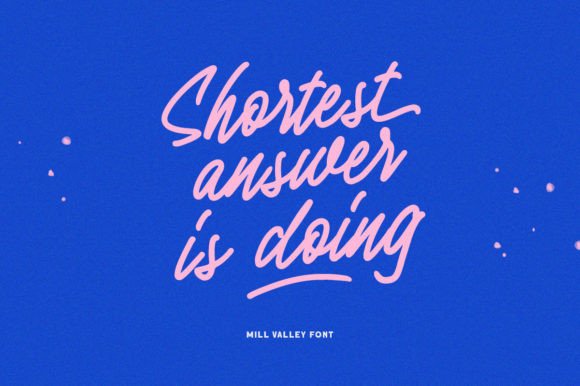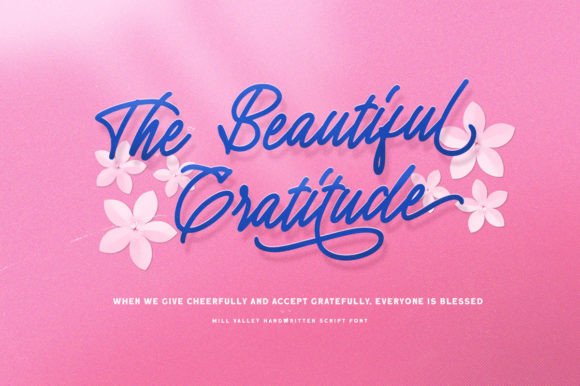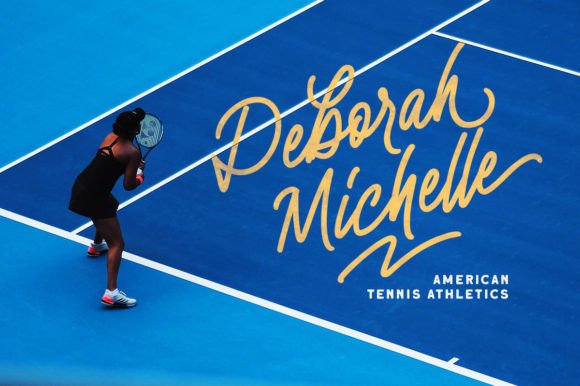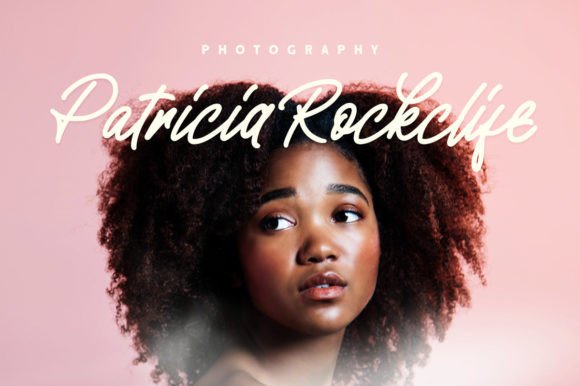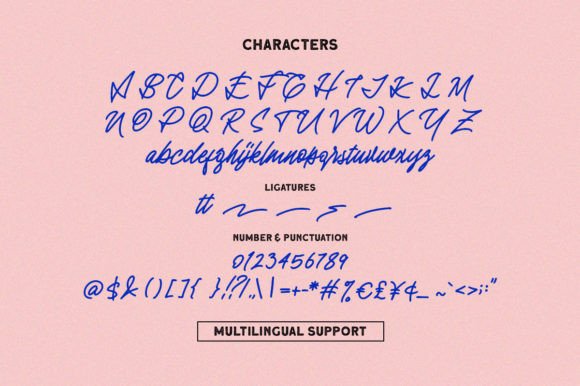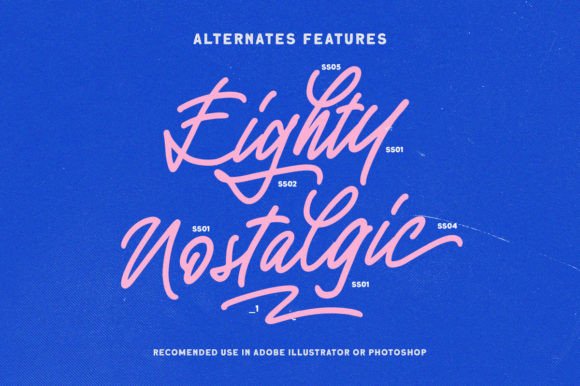
Introduction to Mill Valley Font
Mill Valley is a fun and casual monoline script font.
Dainty and joyful, this font will be ideal for writing wedding invitations, cards, or any other design that may need a romantic, personalized touch .
Key Features of Mill Valley Font